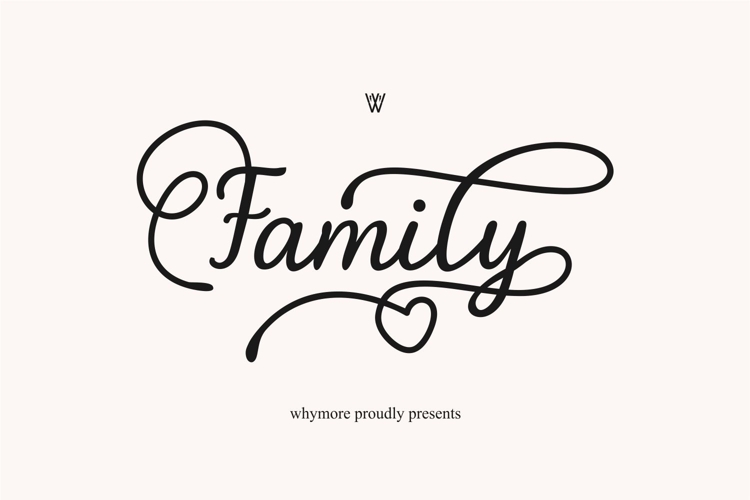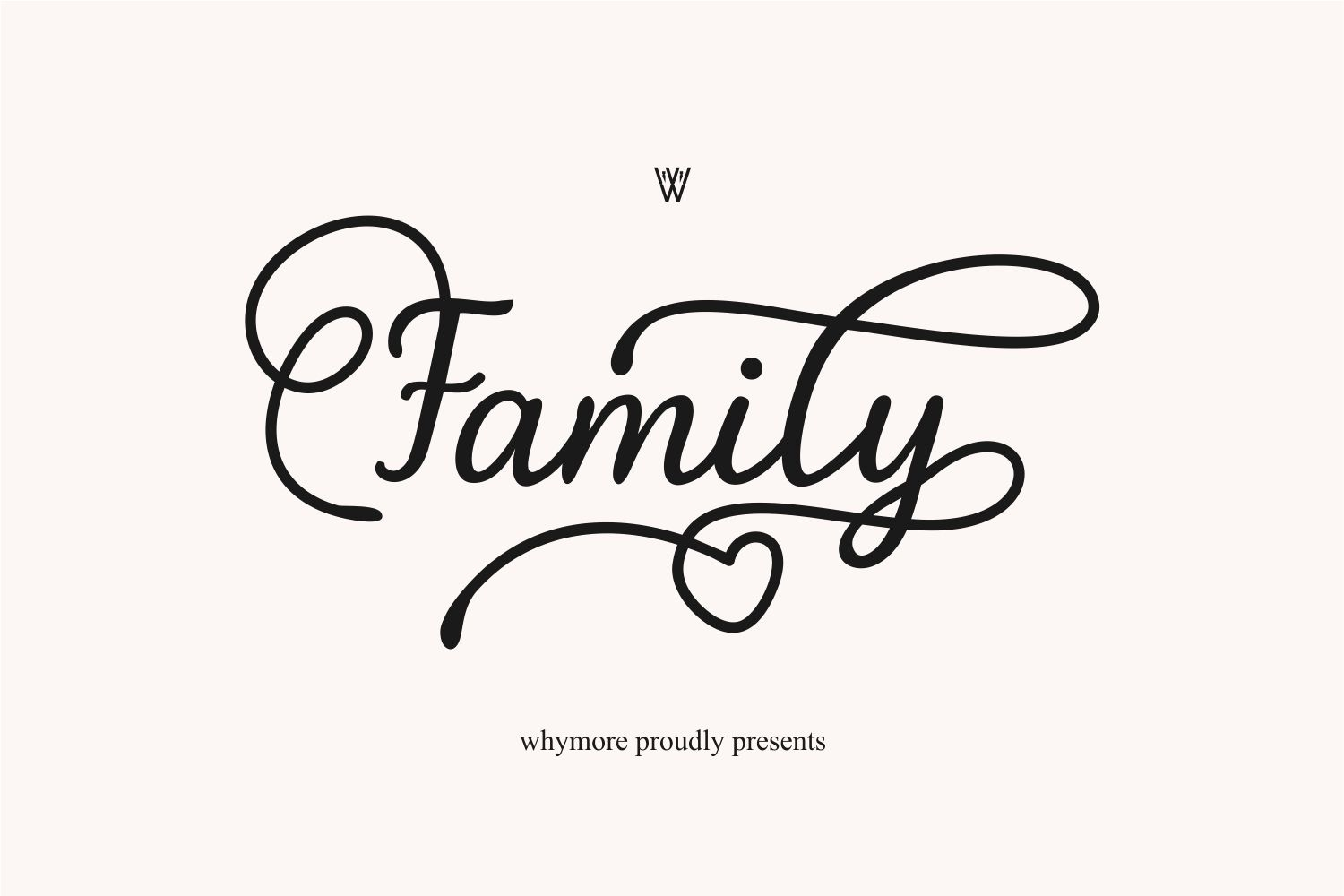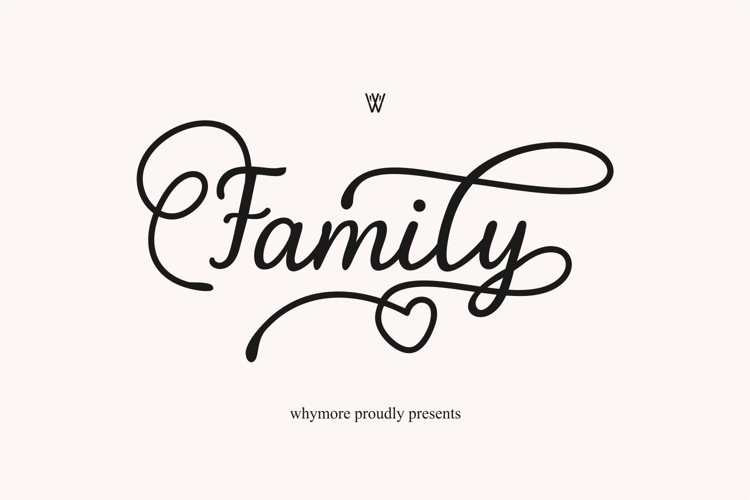
Family Girly Script Handwritten Font
Family is a modern handwritten script font that beautifully blends elegance, femininity, and warmth.
Designed with soft monoline strokes and romantic decorative swashes, it’s the perfect choice for wedding invitations, signature logos, fashion branding, and stationery.
Each letter flows gracefully, bringing love, charm, and timeless beauty to your designs.
Whether used for a wedding project, boutique logo, or chic social media design, Family Script adds that handwritten sophistication that turns every word into art.
Use Family to:
✨ Elevate brand logos with a feminine, graceful touch.
💍 Create romantic wedding invitations filled with elegance and emotion.
🪶 Add refined handwritten beauty to cards, packaging, and social media visuals.
Family Script isn’t just a font — it’s a symbol of elegance, love, and modern simplicity that gives your designs a heartwarming allure.